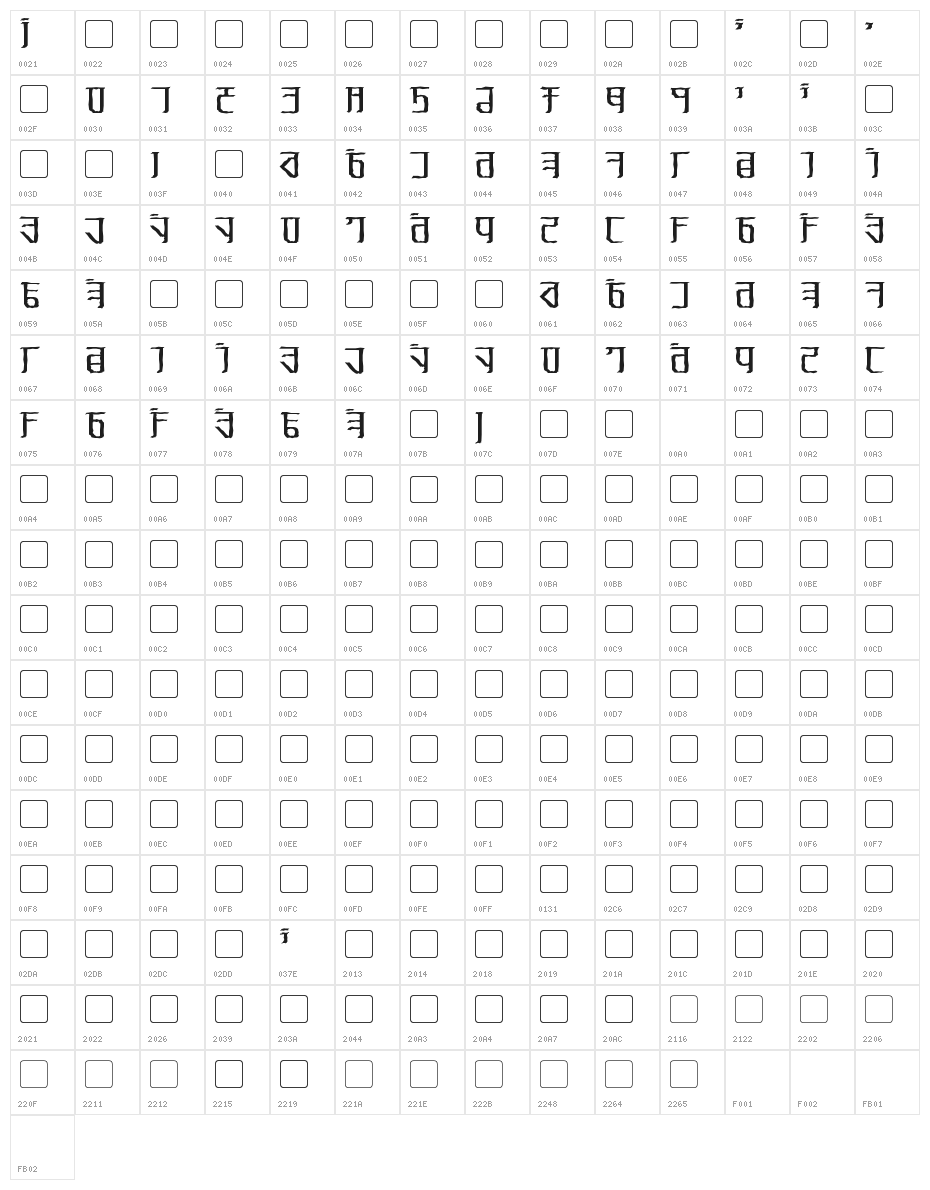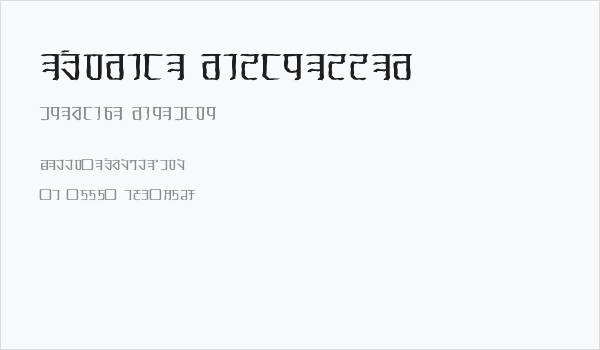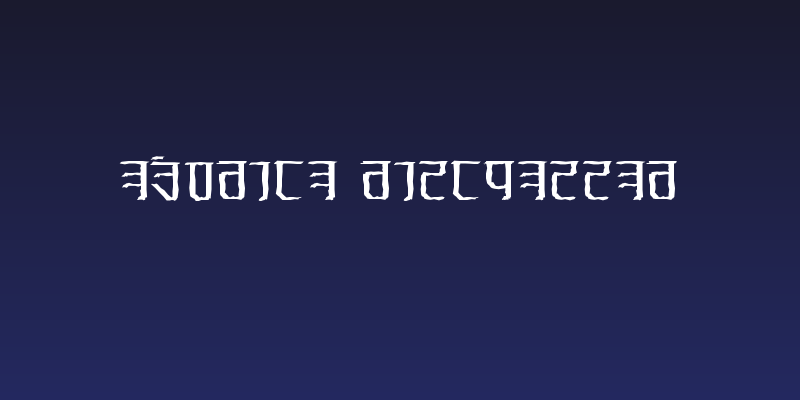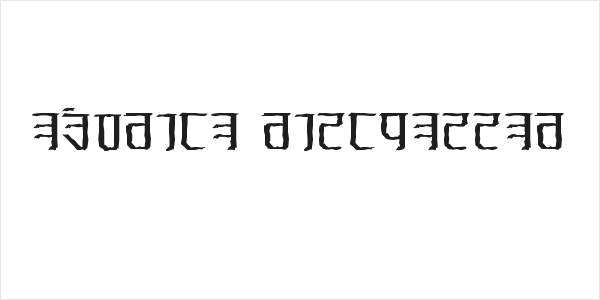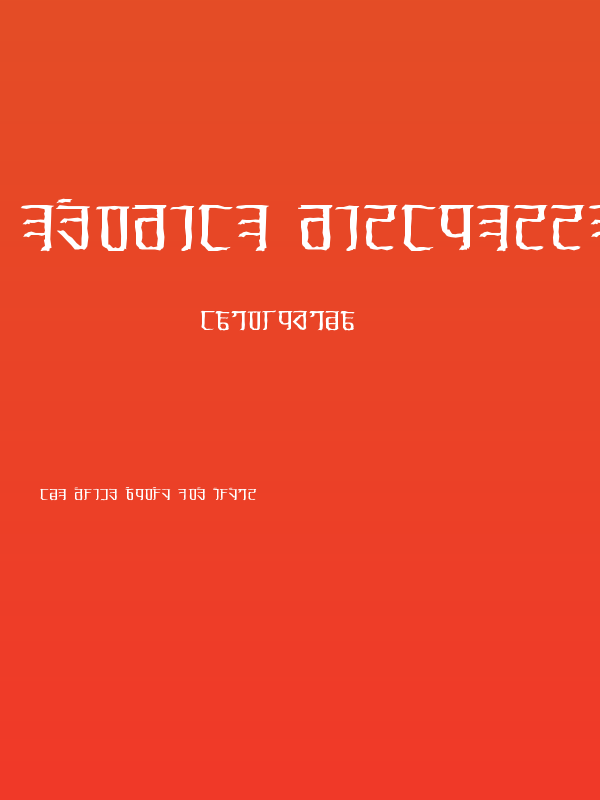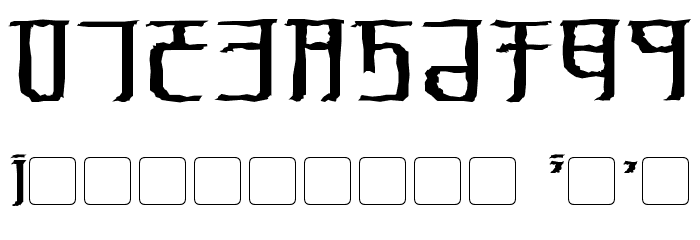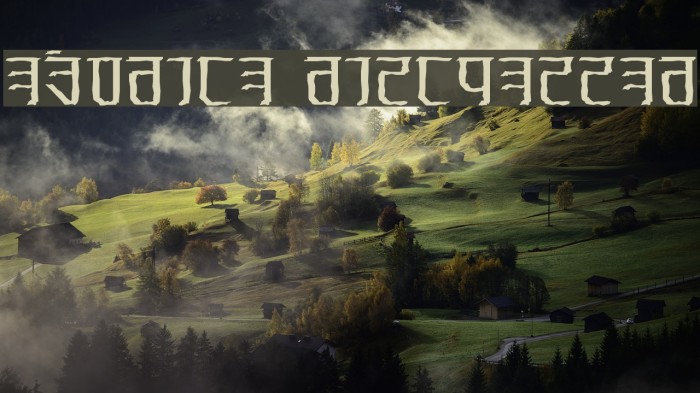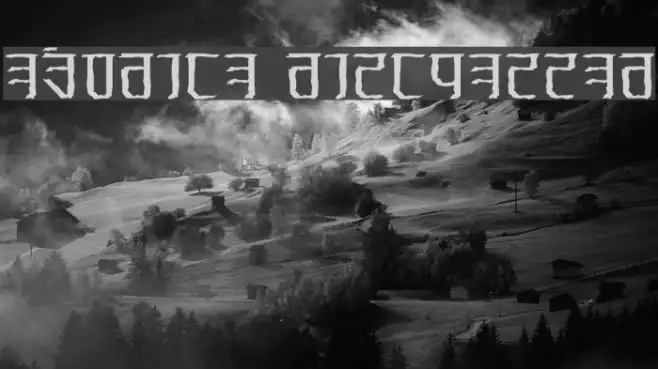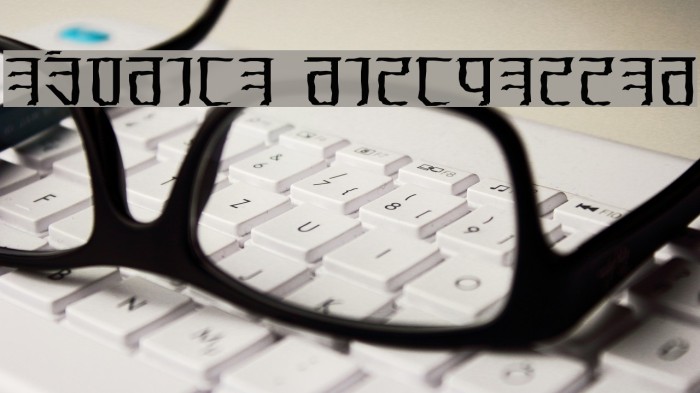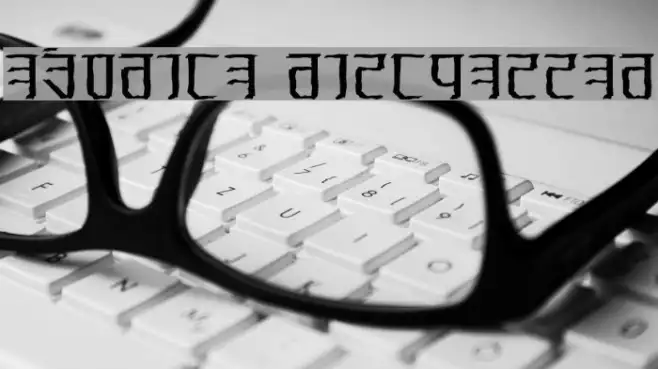
Exodite Distressed Font
Exodite Distressed Description
This font features a rugged, distressed appearance with sharp, angular edges and a bold presence. The characters are designed to look worn and aged, giving them a unique, textured look. The uppercase and lowercase letters maintain a consistent style, with jagged lines and uneven strokes that suggest a hand-crafted, vintage feel. The numbers and special characters follow the same design principles, ensuring a cohesive look across all elements. This font is ideal for projects that require a gritty, industrial aesthetic.
| Overall Style | Vintage, Industrial |
| Proposed Projects | Ideal for posters, album covers, branding for edgy or industrial-themed products, and any design requiring a bold, distressed look. |